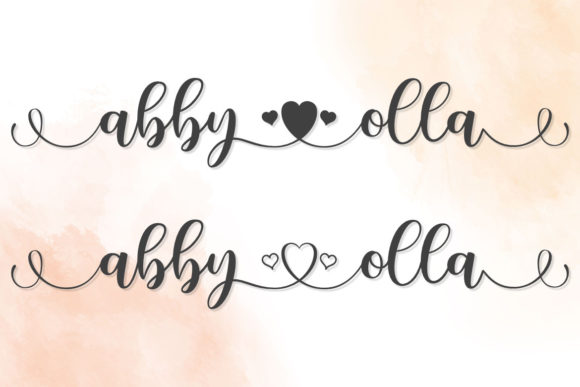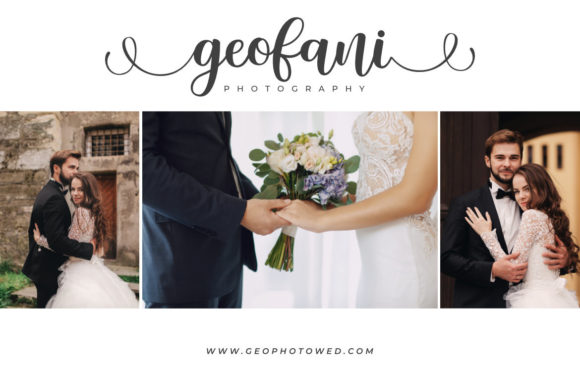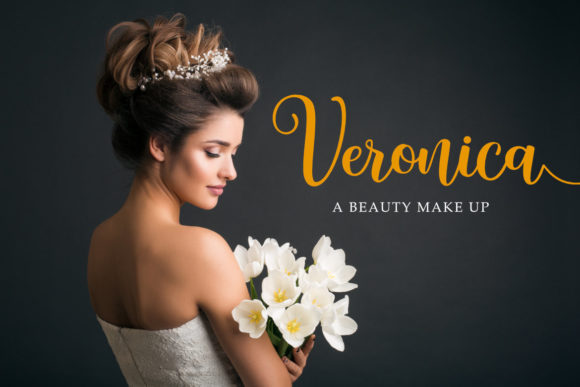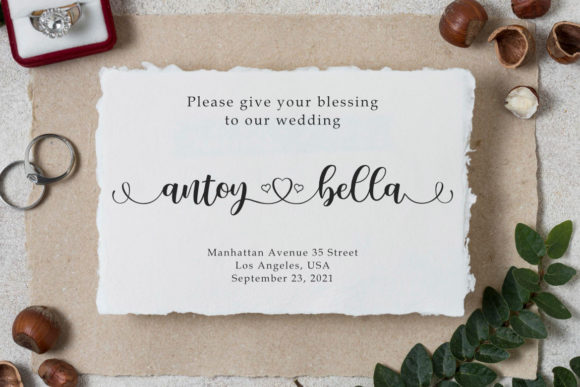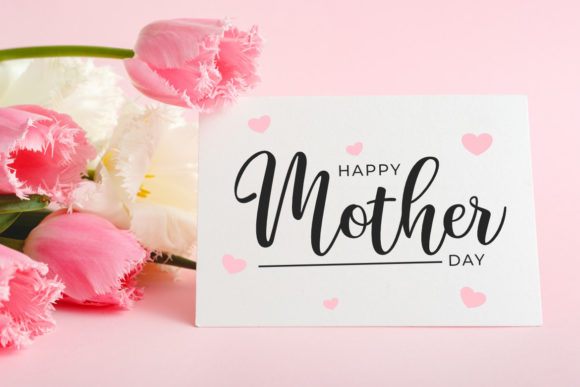
Introducing Abby Olla, a romantic and sweet calligraphy typeface that exudes elegance and charm. With its dancing characters along the baseline, this font will add a luxurious spark to any design project you wish to create.
Abby Olla is designed to captivate and enchant, making it perfect for wedding invitations, branding materials, greeting cards, logos, and more. Its flowing and delicate letterforms create a sense of romance and sophistication, elevating your designs and adding a touch of elegance.
The characters in Abby Olla are carefully crafted to create a beautiful and harmonious look. Each letter gracefully connects to the next, creating a seamless and flowing script. The varying stroke weights and elegant curves give the font a sense of balance and beauty.
With its PUA encoding, Abby Olla provides easy access to a wide range of amazing glyphs and ligatures. This allows you to enhance your designs with unique swashes, flourishes, and decorative elements, adding a personal and distinctive touch to your creations.
Whether you’re designing wedding invitations, love letters, branding materials, or any project that requires a romantic and luxurious feel, Abby Olla is the perfect choice. Its timeless and enchanting style will bring a touch of magic to your designs and leave a lasting impression on your audience.
In summary, Abby Olla is a romantic and sweet calligraphy typeface that adds a luxurious spark to your design projects. With its flowing characters and PUA encoding, it offers a wide range of glyphs and ligatures to enhance your designs. Let Abby Olla bring a touch of elegance and romance to your creations and make them truly unforgettable.